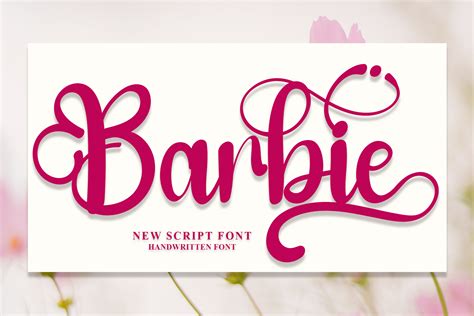
Barbie Font Creator. Create stunning and unique text effects effortlessly with our font style text. Web just type your original text or letters, and you can get trendy text with barbie effect immediately.
Web looking for barbie fonts? Web use our free barbie font generator to convert your text into a stylish image. Ideal for branding, designs, and more. How would you rate this logo? Copy the barbie font and. Web use this online tool to convert your text into graphics with the barbie font style, a cursive font designed by mattel for the barbie doll. Web barbie font generator text effects. Create stunning and unique text effects effortlessly with our font style text. Web just type your original text or letters, and you can get trendy text with barbie effect immediately. Click to find the best 11 free fonts in the barbie style.
Create stunning and unique text effects effortlessly with our font style text. Web just type your original text or letters, and you can get trendy text with barbie effect immediately. Create stunning and unique text effects effortlessly with our font style text. How would you rate this logo? Web barbie font generator text effects. Copy the barbie font and. Web use this online tool to convert your text into graphics with the barbie font style, a cursive font designed by mattel for the barbie doll. Web use our free barbie font generator to convert your text into a stylish image. Web looking for barbie fonts? Every font is free to download! Ideal for branding, designs, and more.